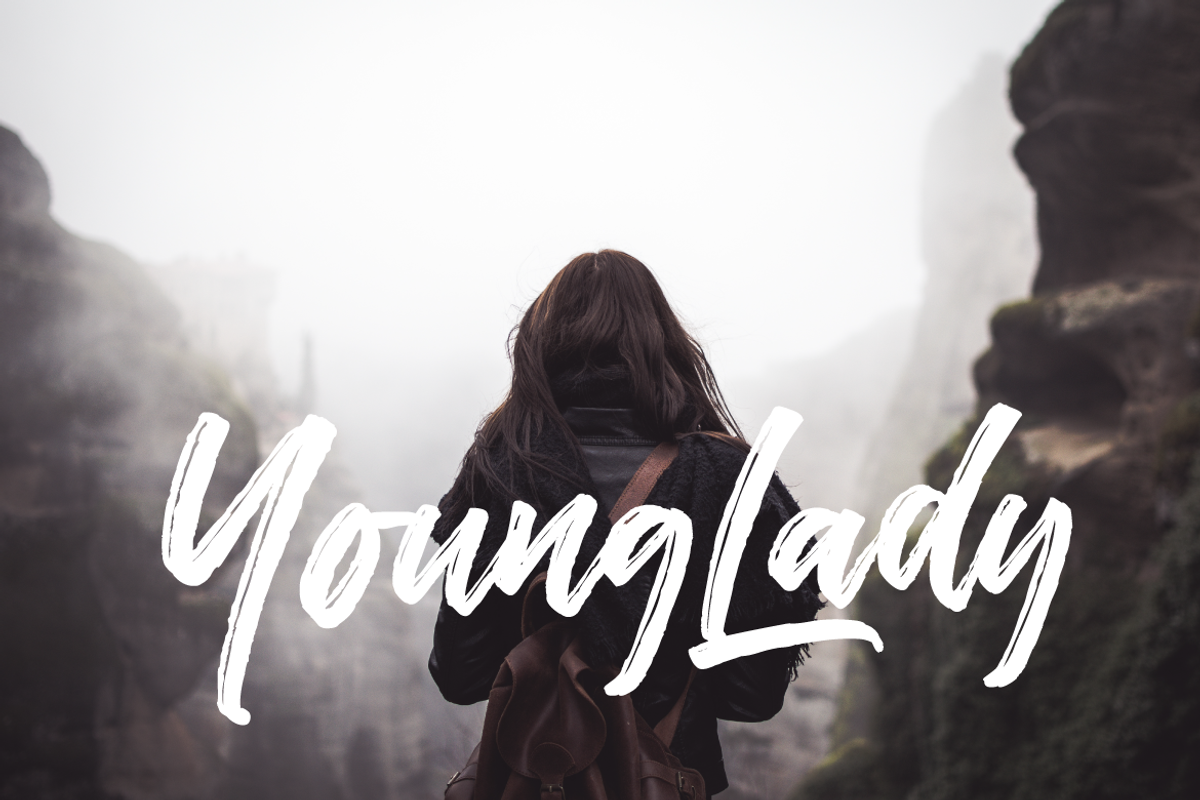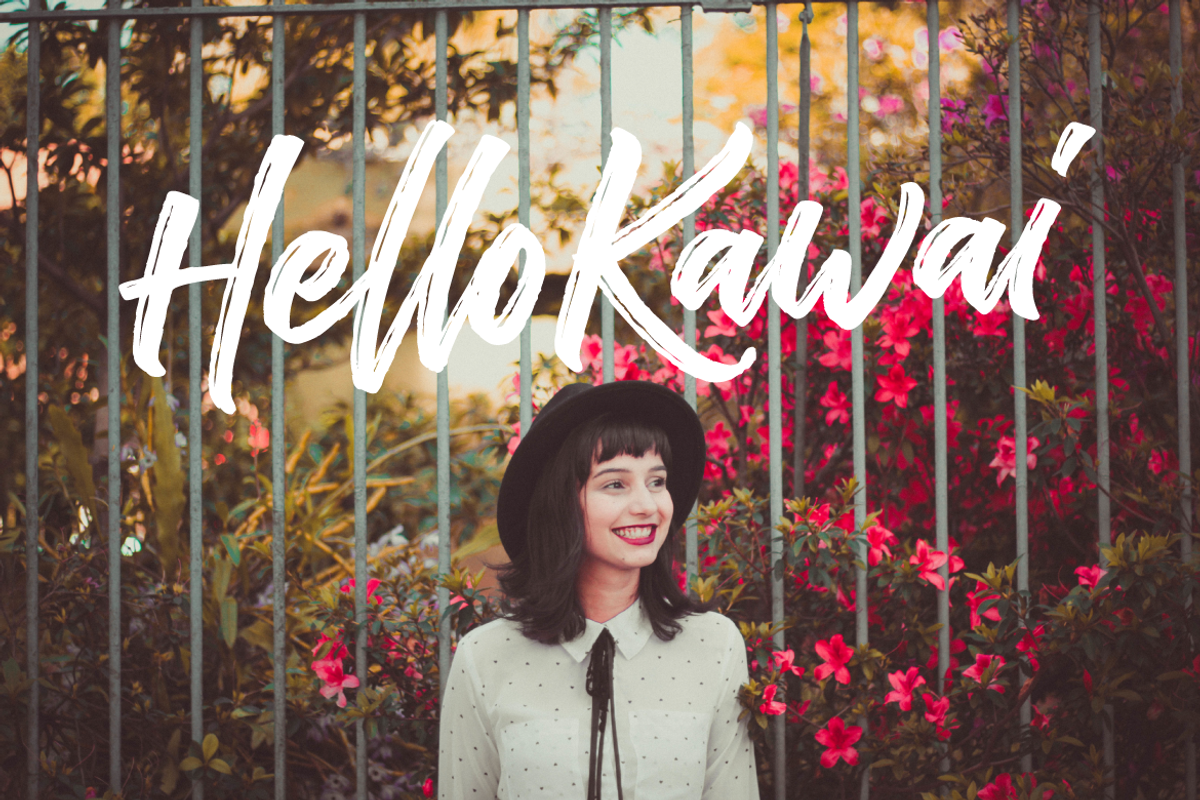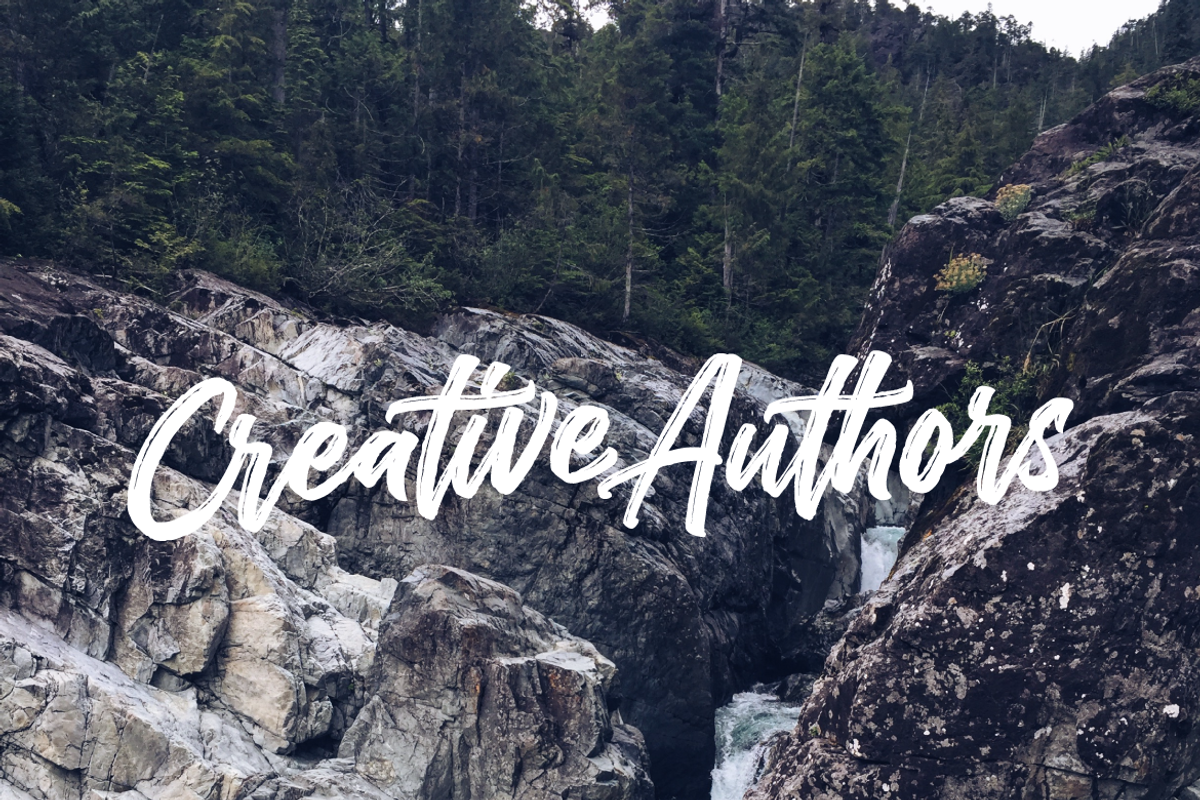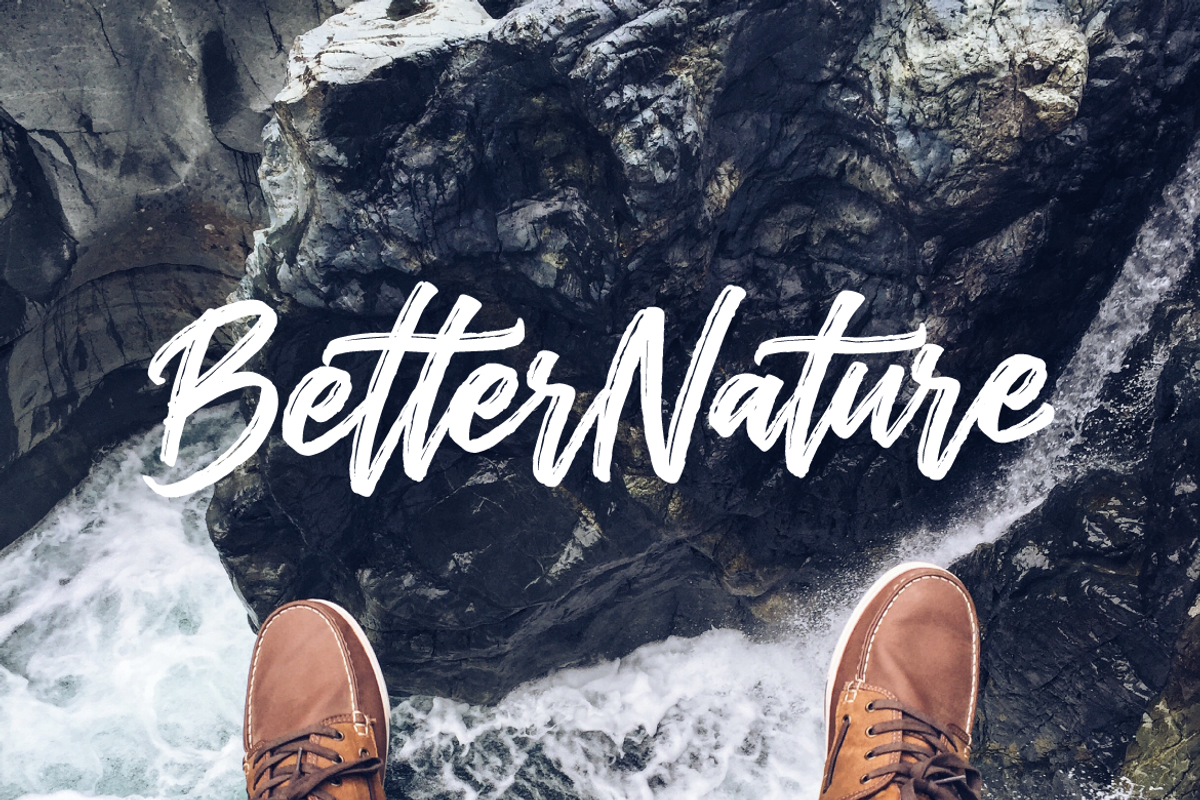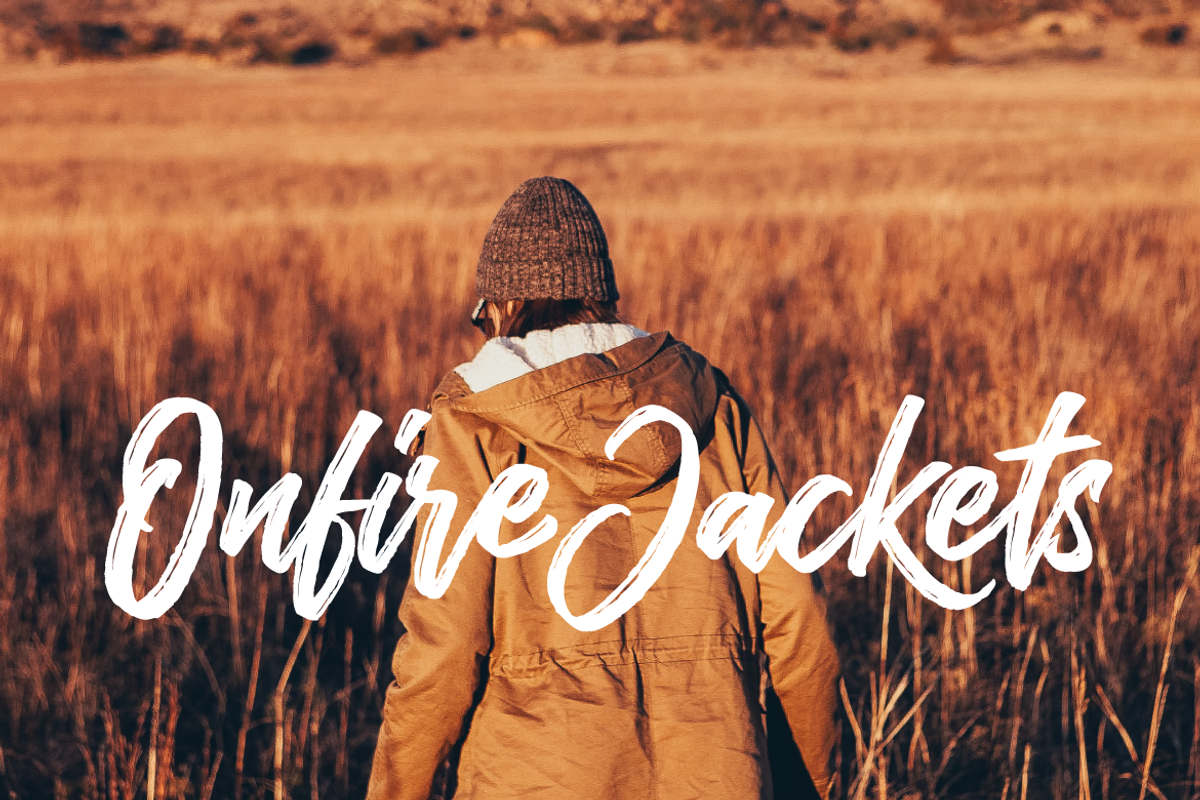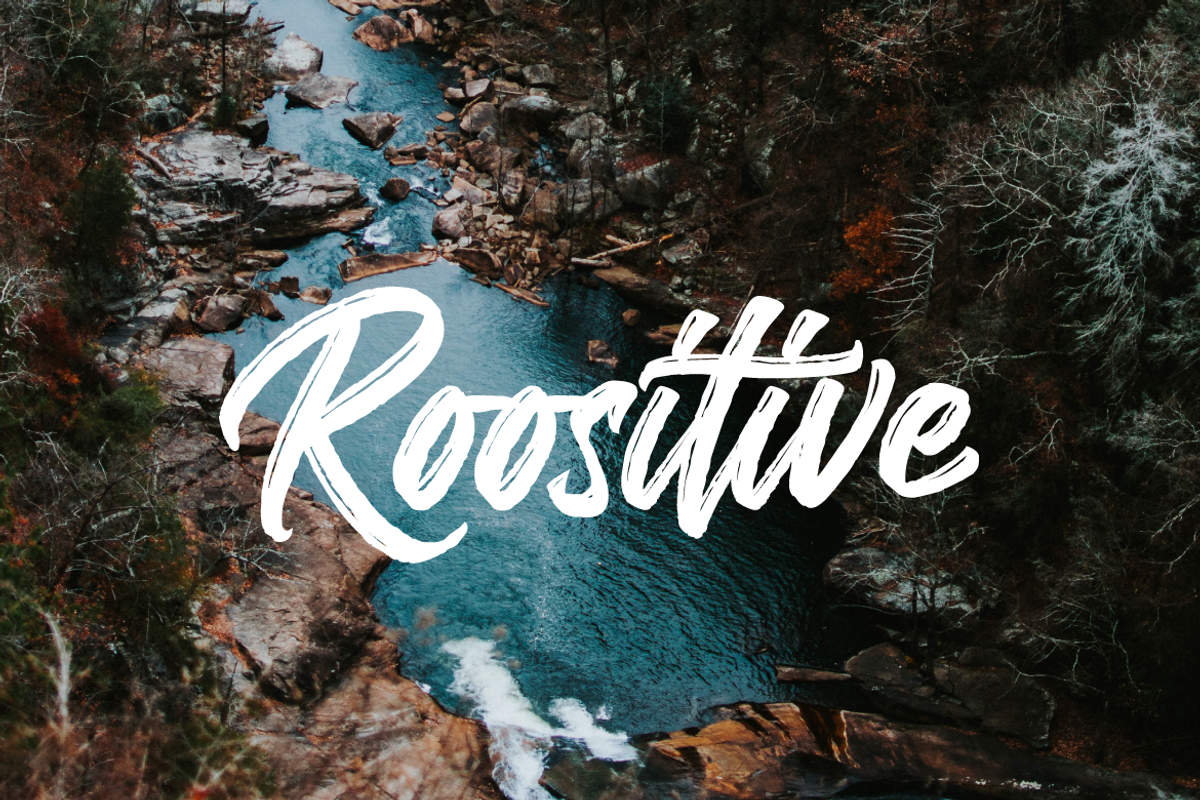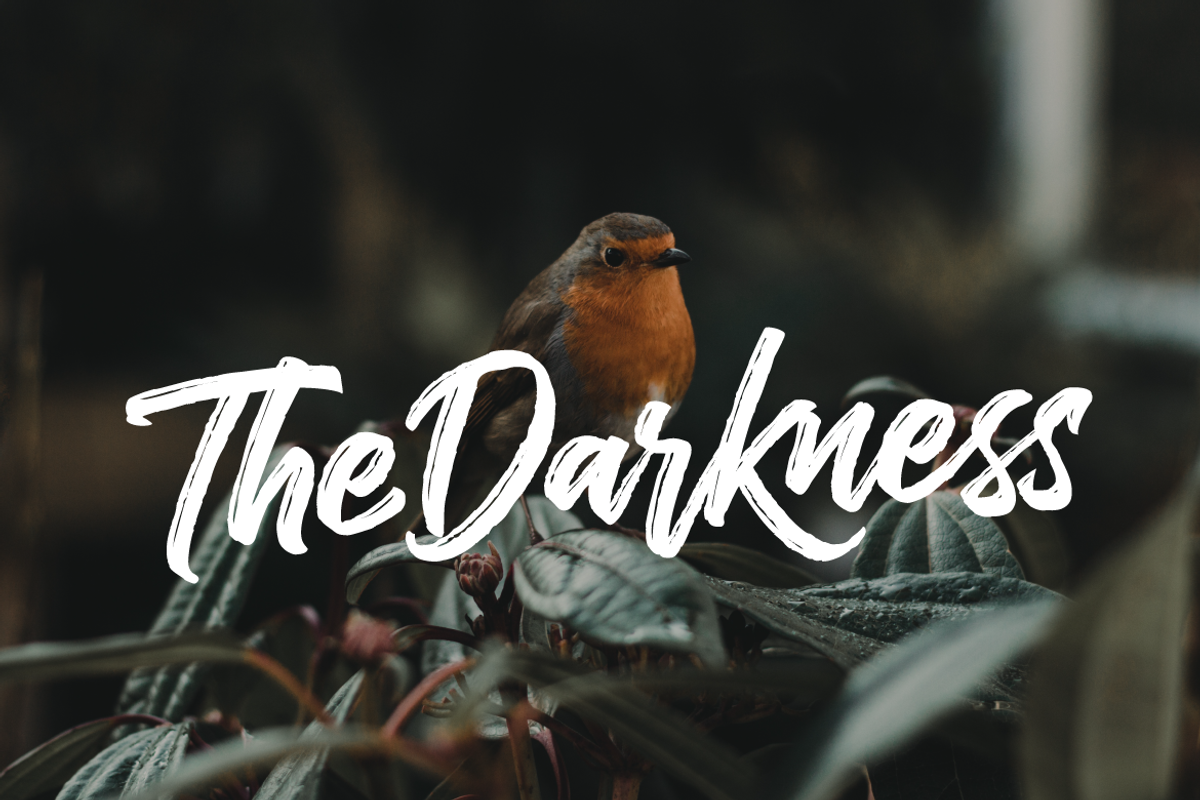
The Historia Urban Font
The Historia Urban Font by Typia Nesia is a font selected for branding, posters, packaging, typography.
- The Historia comes with upper and lowercase Standard Characters, Punctuation, Numerals.
- Includes a range of multilingual support.
- And some glyphs variation of the OpenType features such as Standard Ligatures and Stylistic Set.
- The Historia Regular
- The Historia Solid Regular
Why The Historia Urban Font is worth a look
The Historia Urban Font by Typia Nesia fits naturally into Branding, posters, packaging, typography.